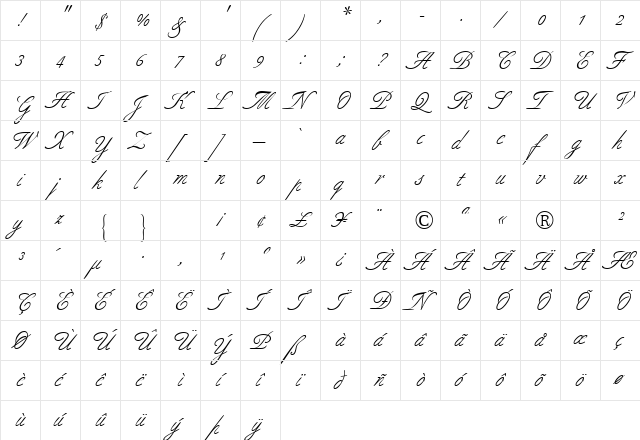
Aldridge Script Ssk Regular
Design Context for Aldridge Script Ssk Typeface
Aldridge Script Ssk flows with the natural rhythm of handwritten lettering, making it ideal for designs that call for warmth and personal expression.
Font Pairing: Combine Aldridge Script Ssk with a simple geometric sans for maximum contrast — the tension between flowing curves and clean structure is a classic typographic pairing.
Pro Tip: Pair Aldridge Script Ssk with a clean sans-serif for supporting text. The contrast between fluid script and geometric structure creates an elegant typographic hierarchy.